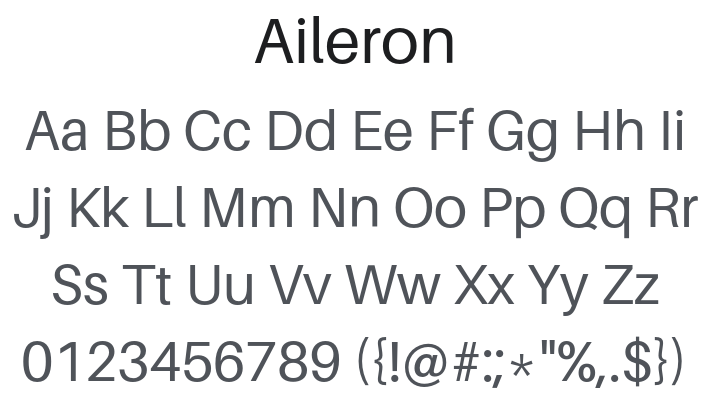
Aileron Font Family
by dot colon
About Aileron
Aileron is a sans-serif font that draws inspiration from Neo-Grotesque typefaces—most notably Helvetica.
To optimize it for body text, the letter spacing has been set slightly wider. Additionally, the lowercase "l" features a curved terminal to ensure it is easily distinguishable from the uppercase "I". While its visual style resembles Helvetica, its underlying concept is closer to Univers.
An updated version, named Nacelle, was released in December 2021.